What is the most important by writing post to the reader’s audience? Of course Heading and headlines are the first thing visitors can see on your web page, posters, brochures, newspapers and any print media. So make your headings more catching and attractive by using these bold headline and headings fonts. All fonts are free and available for commercial use. Here are the best fonts founded online. Enjoy!
Headache Free Sans Serif Font
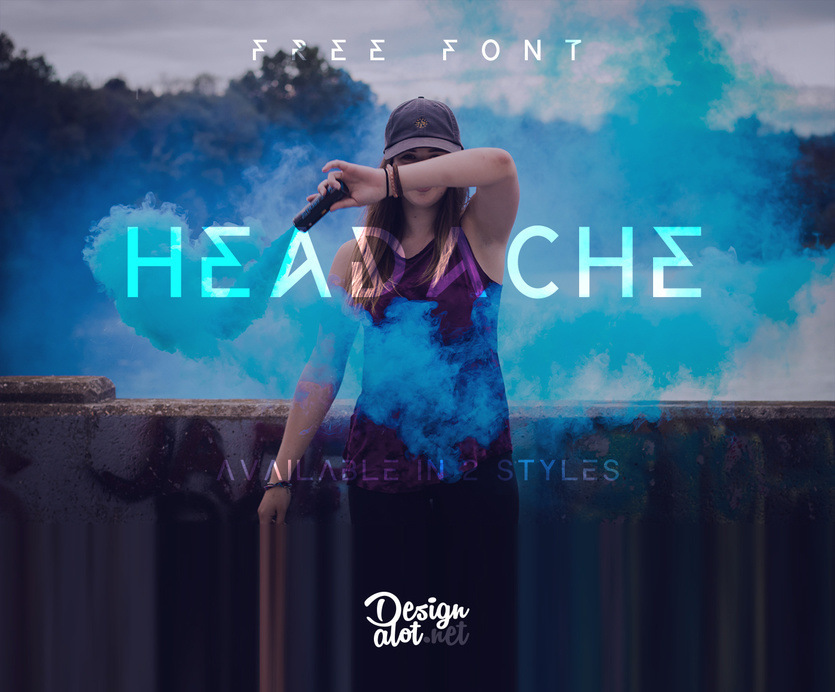
Neon Free Colorful Pattern Font
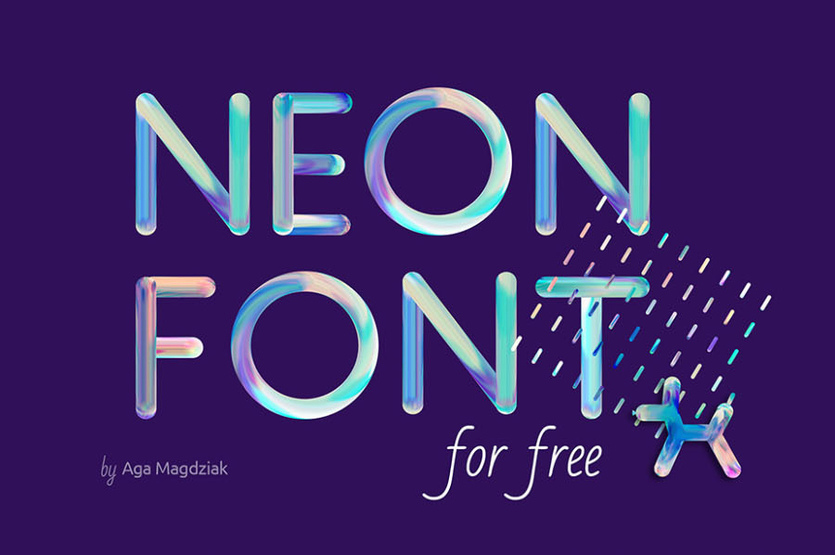
Lost Childhood Display Typeface
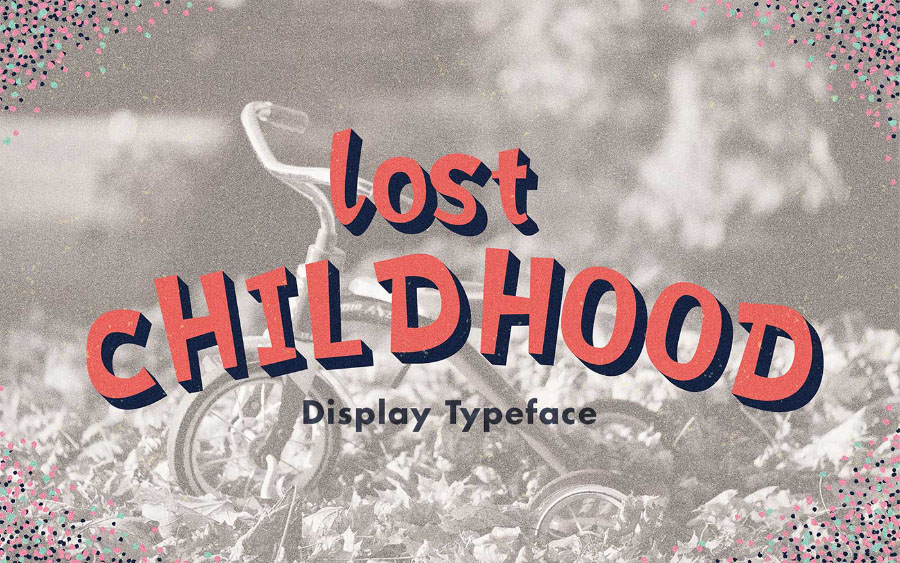
Dream Attack Free Grotesk Font
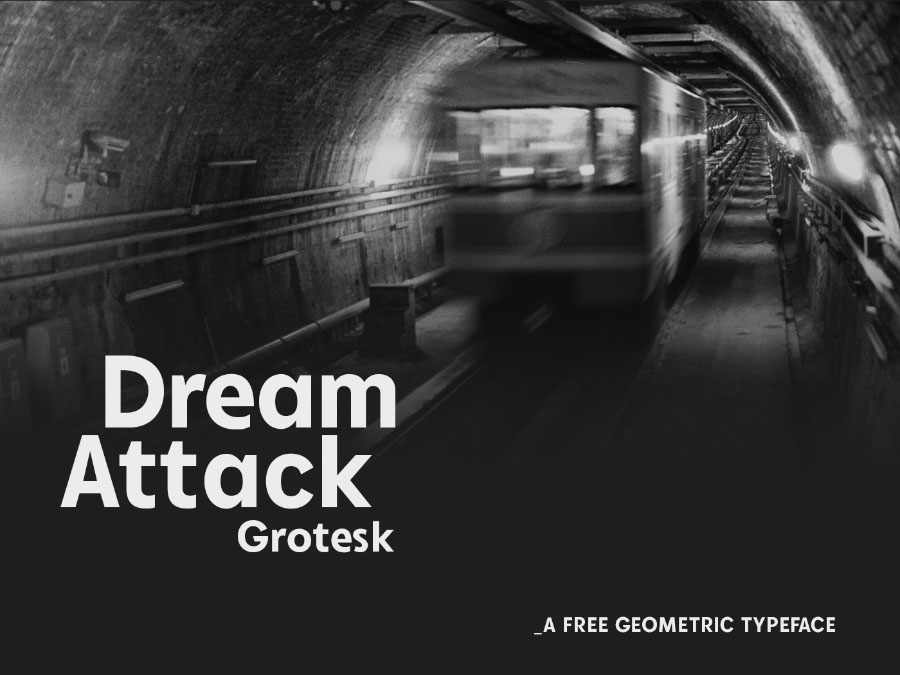
Celebration Typeface
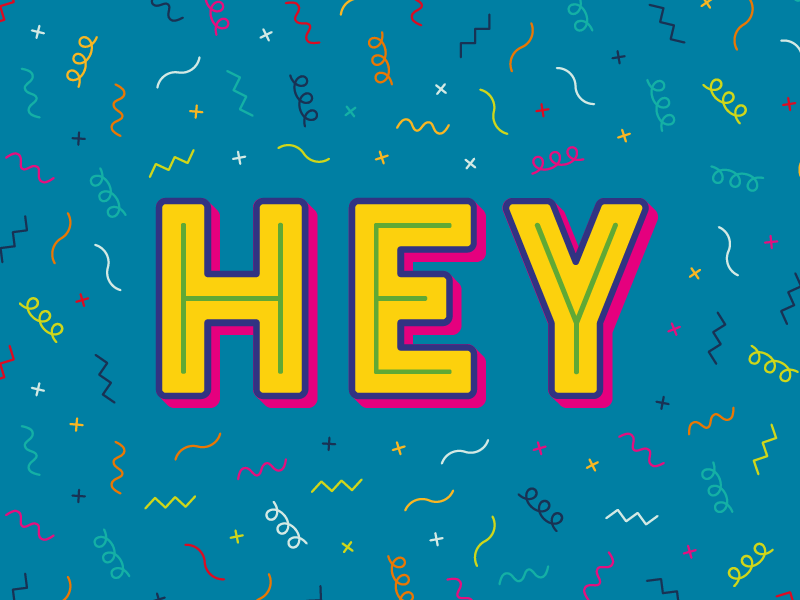
Hipstelvetica Free Display Font
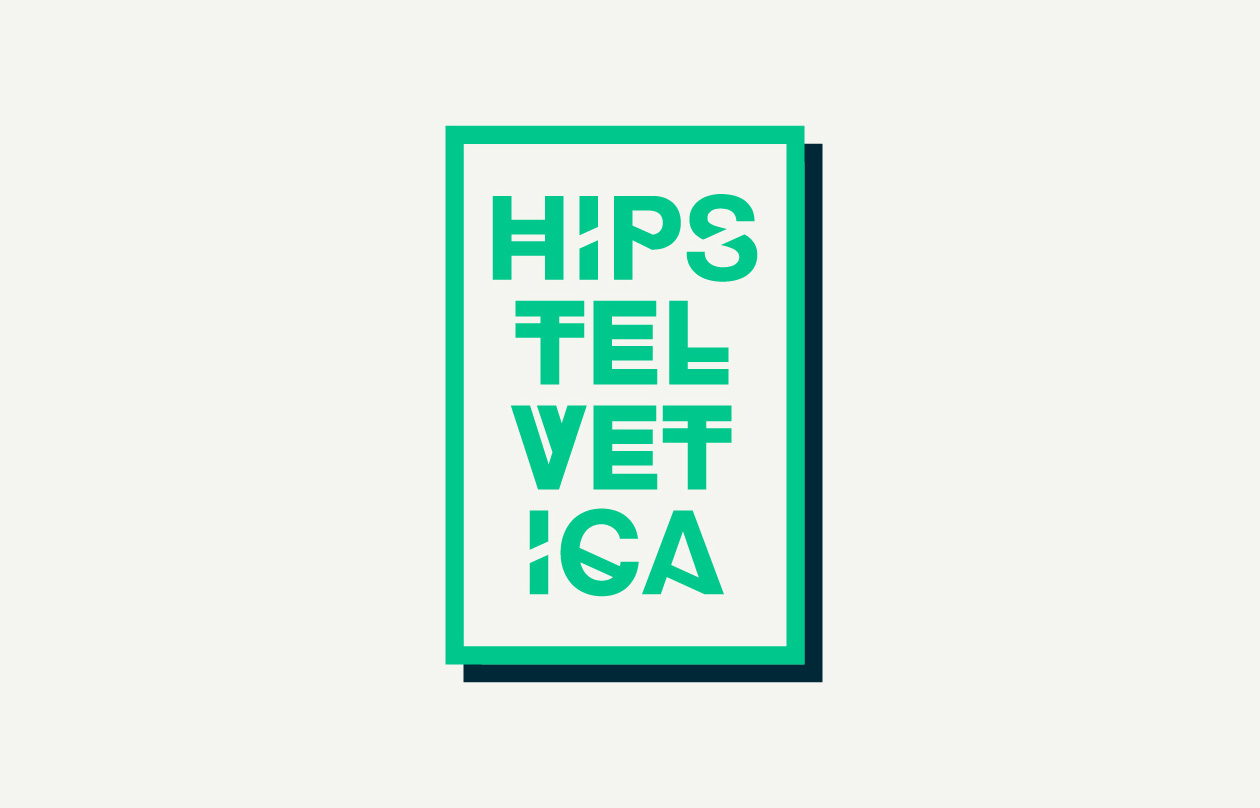
Alteride Free Handmade Typeface
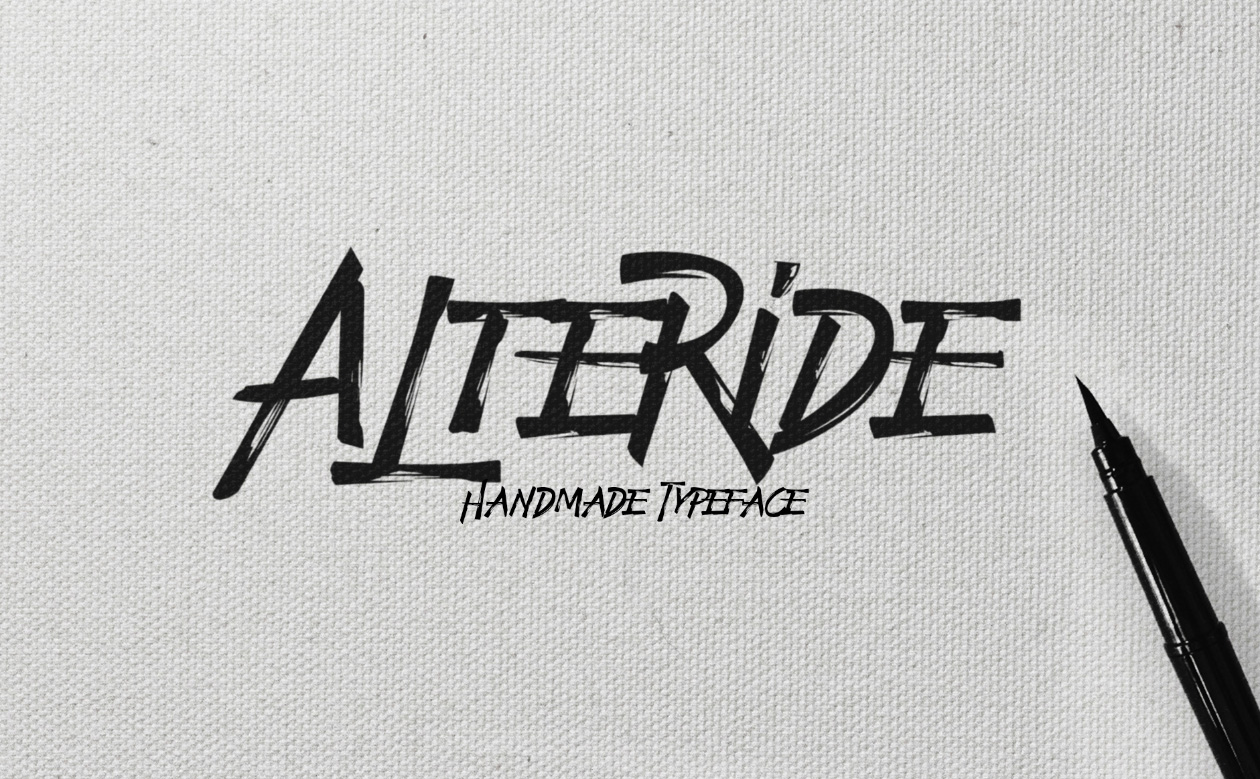
Monad Free Typeface
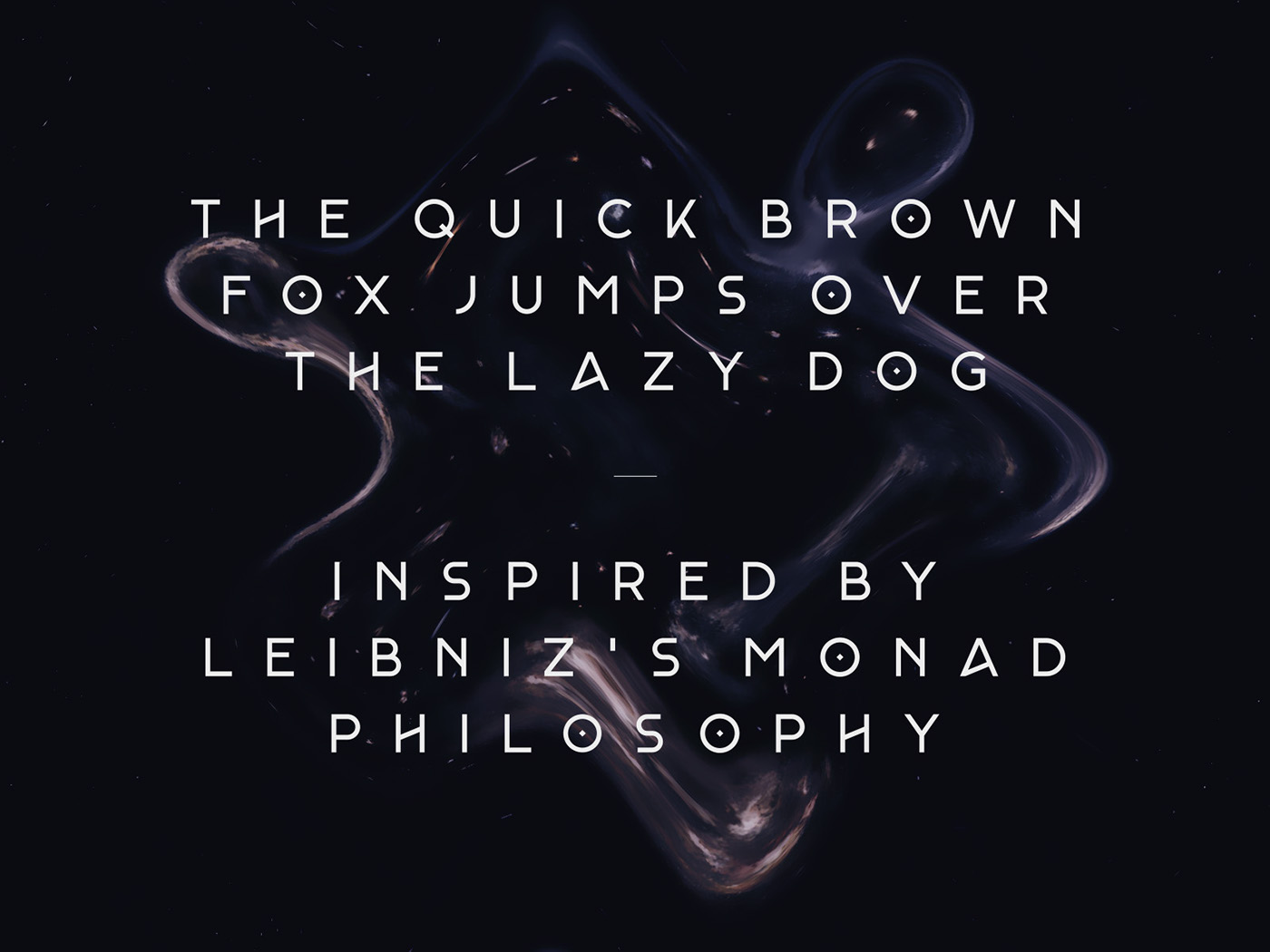
Free Baloon Typeface
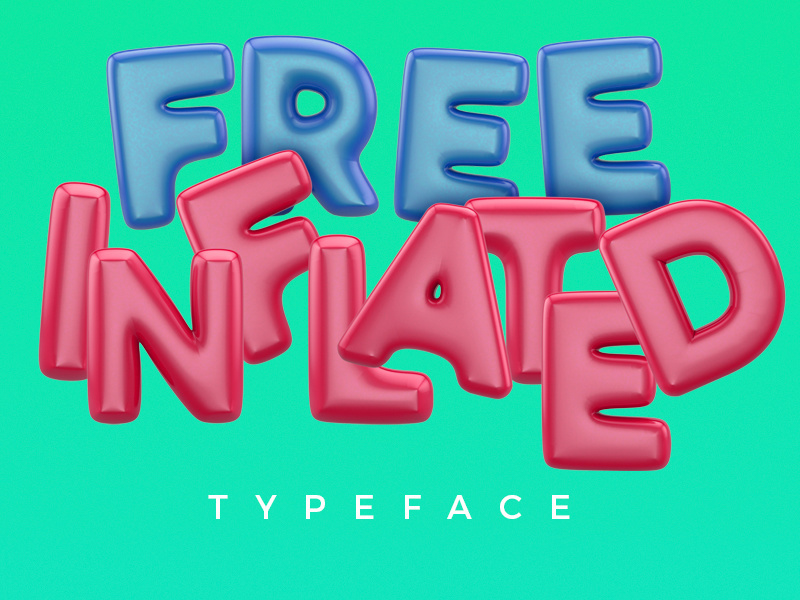
Space Free Font
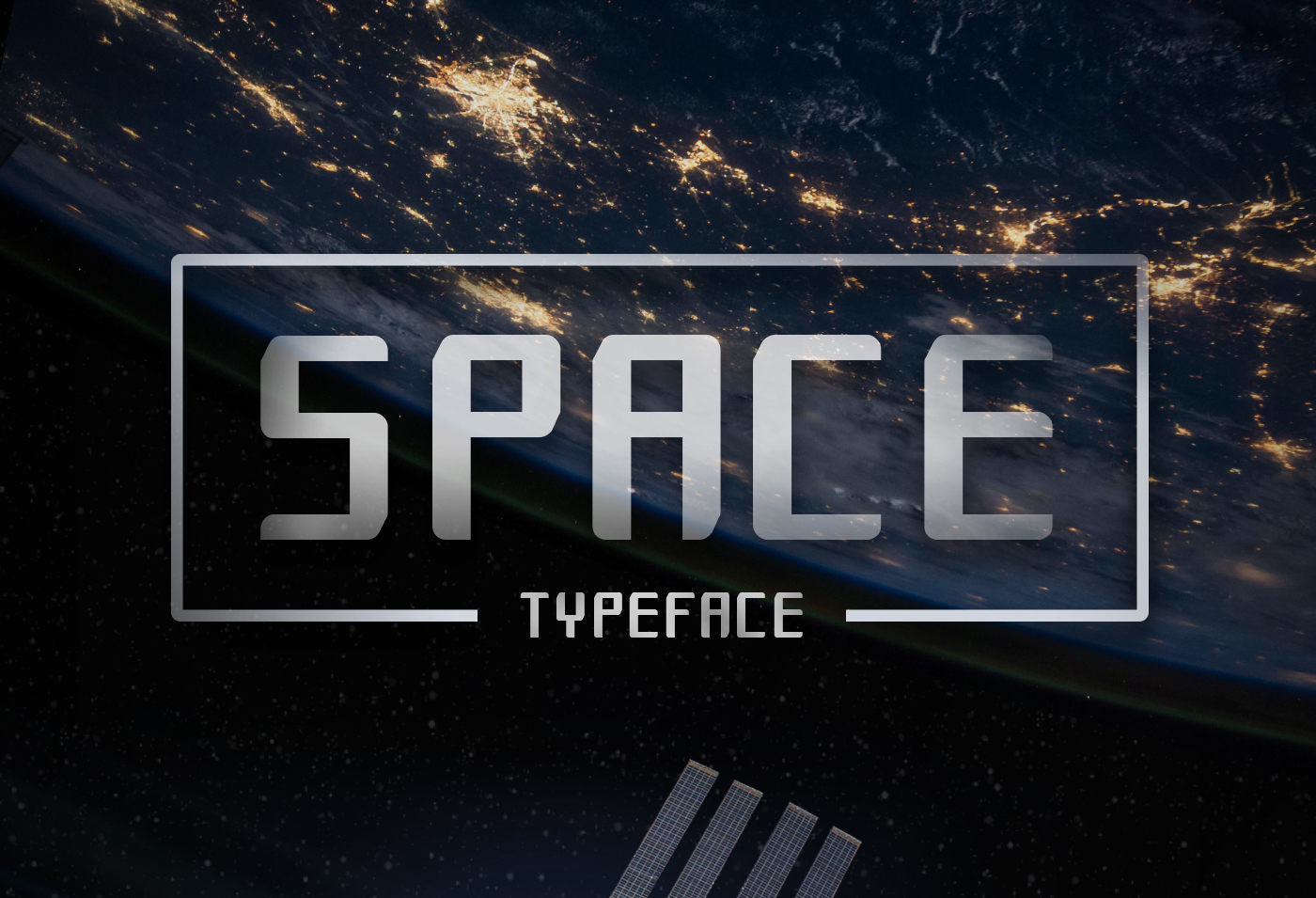
Protos Free Typeface
Acrylic Free Colorful Typography
Unusual Brush – Free Font
Sawage Free Font
Cities Free Typeface
Free Softa Font – Instagramic Colors